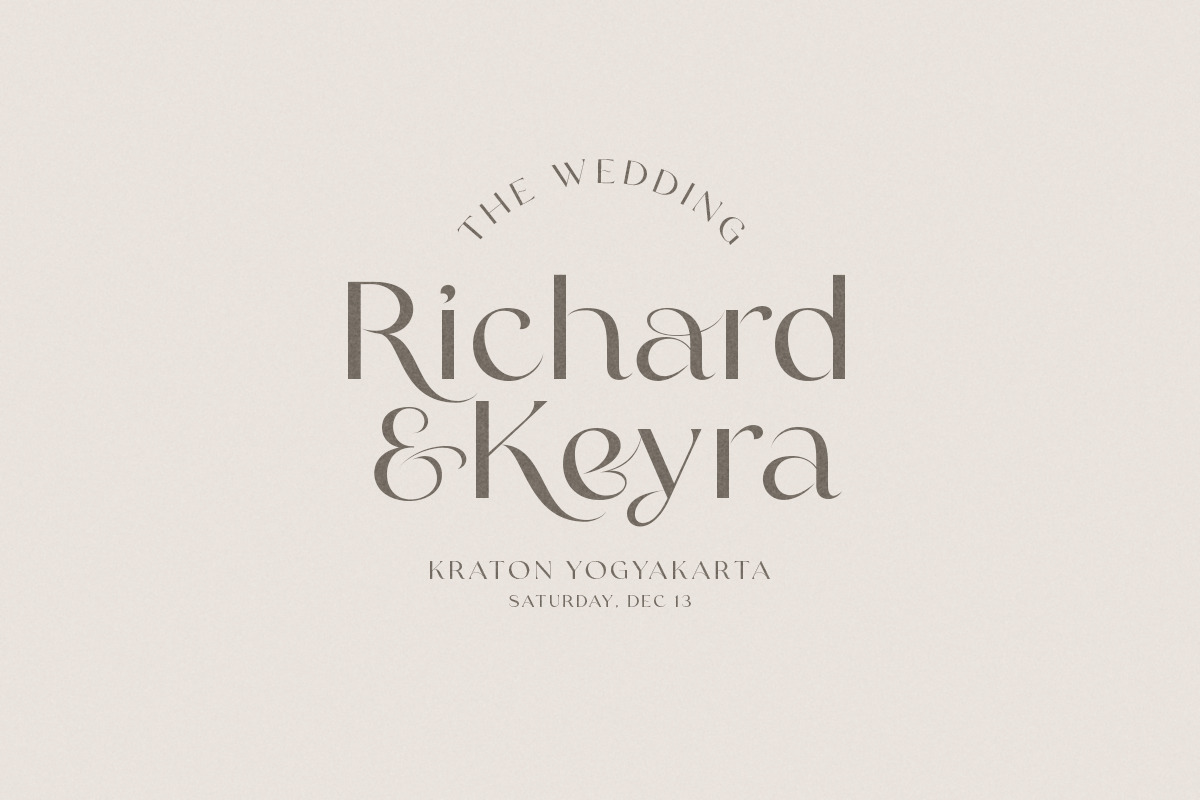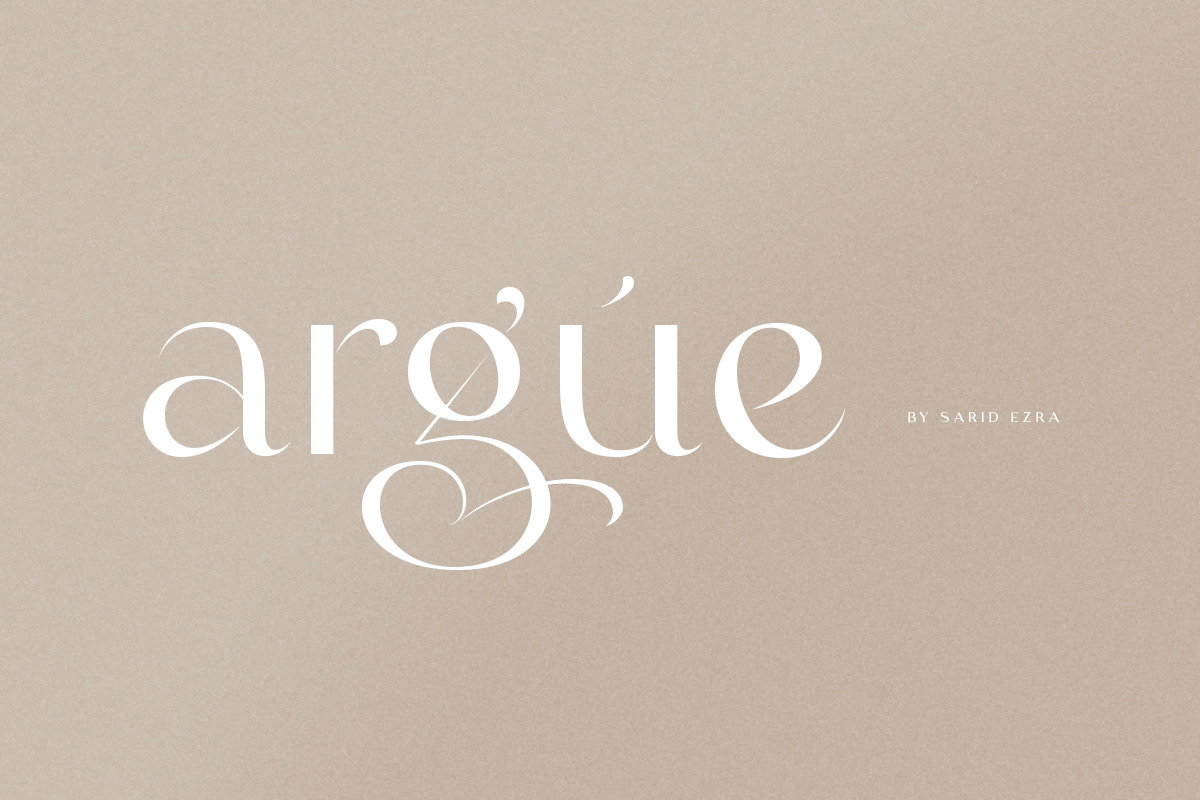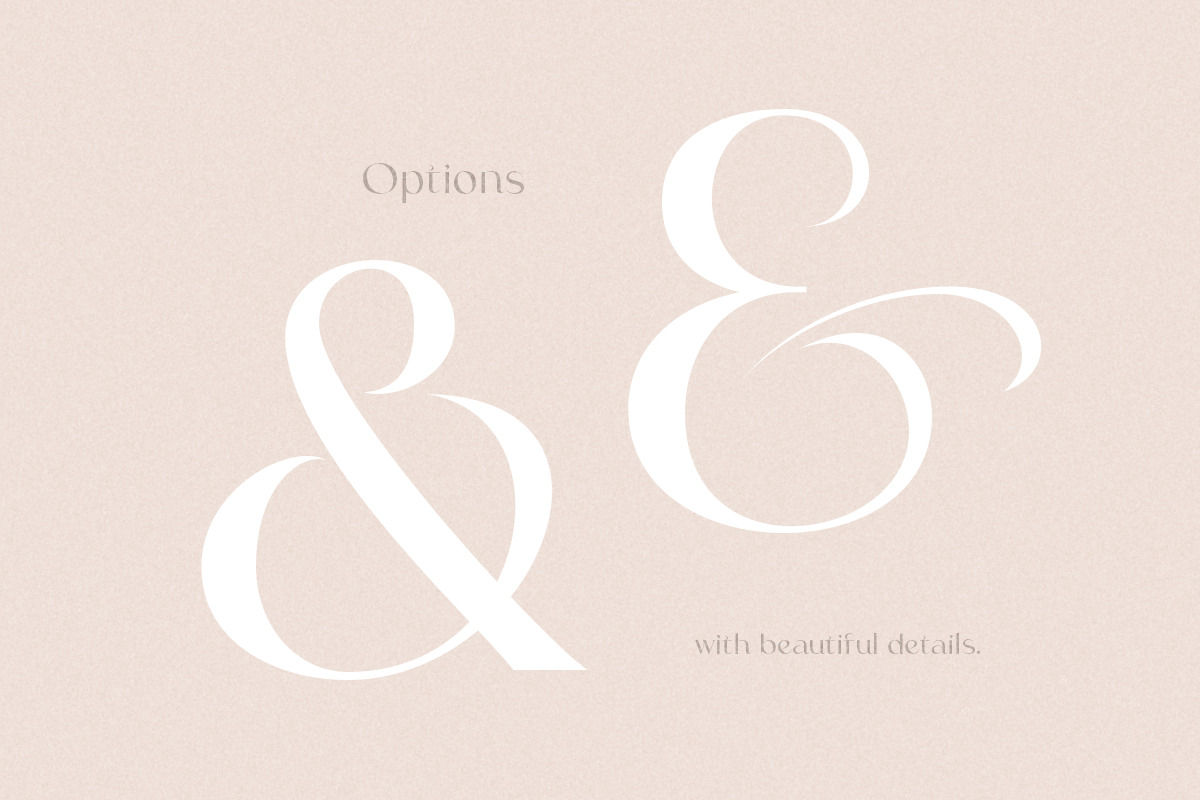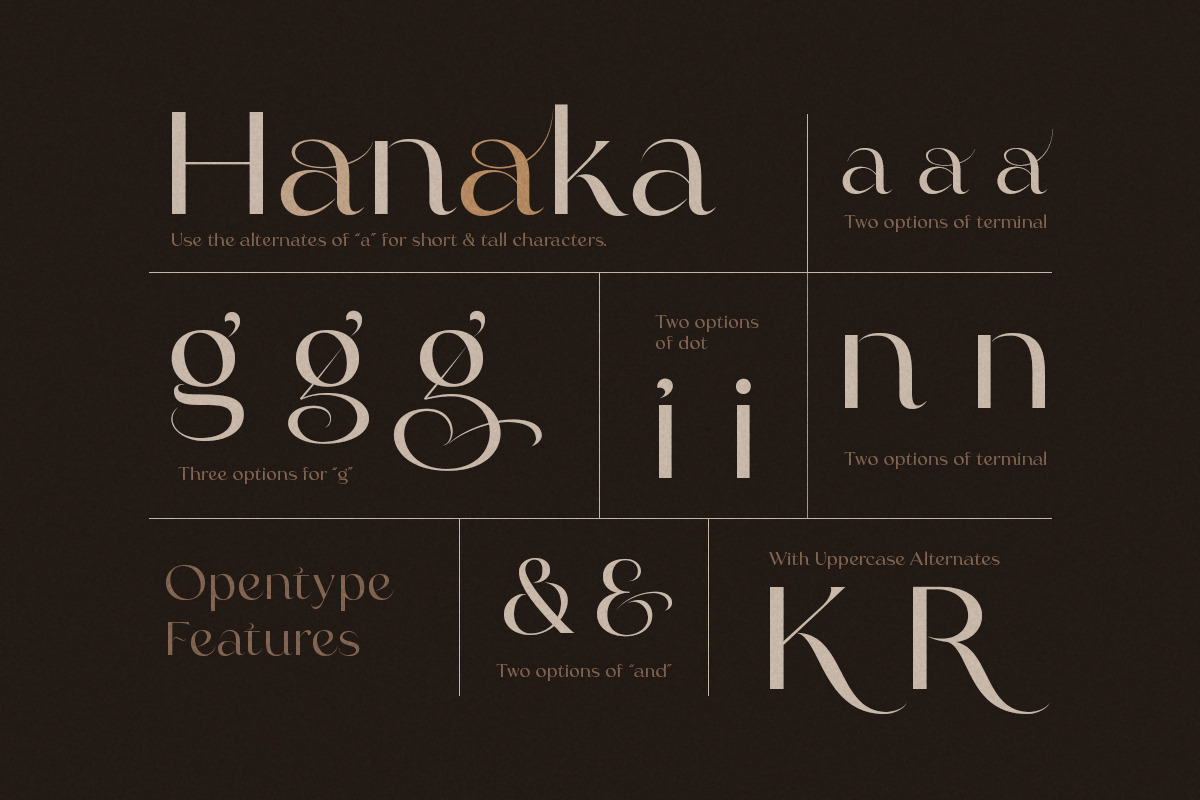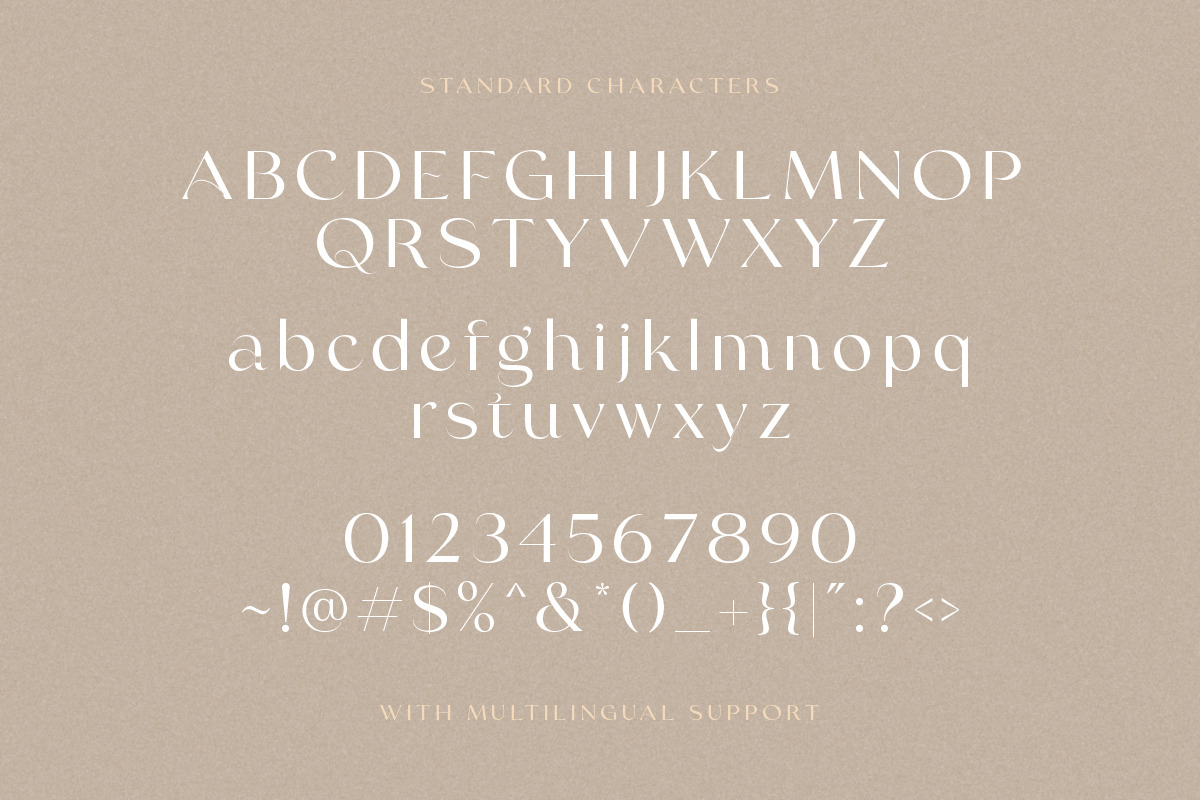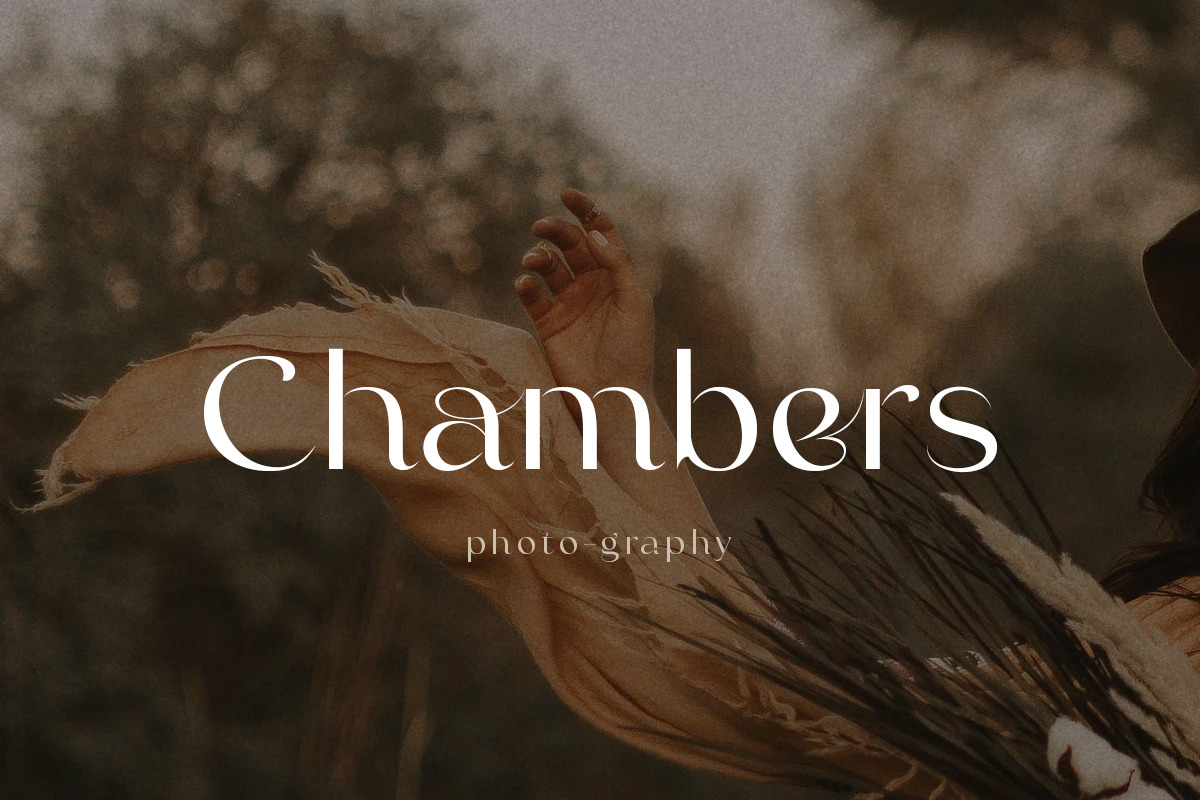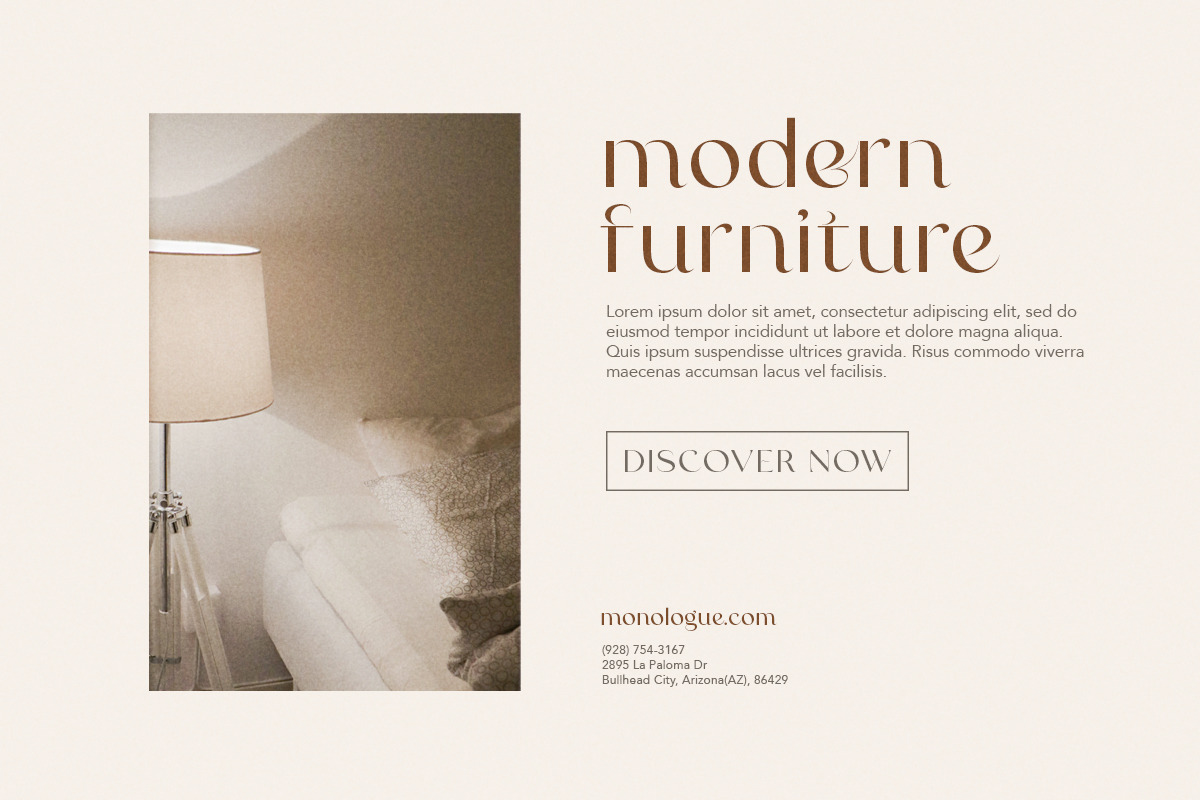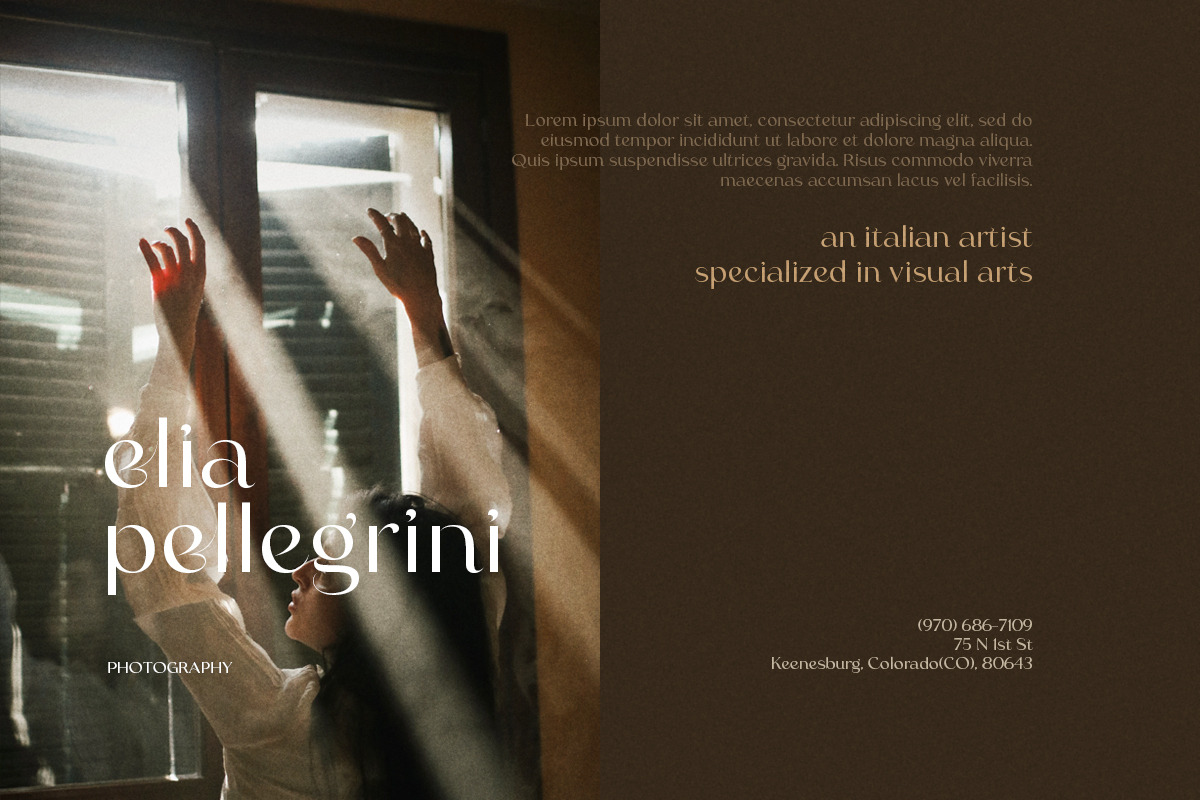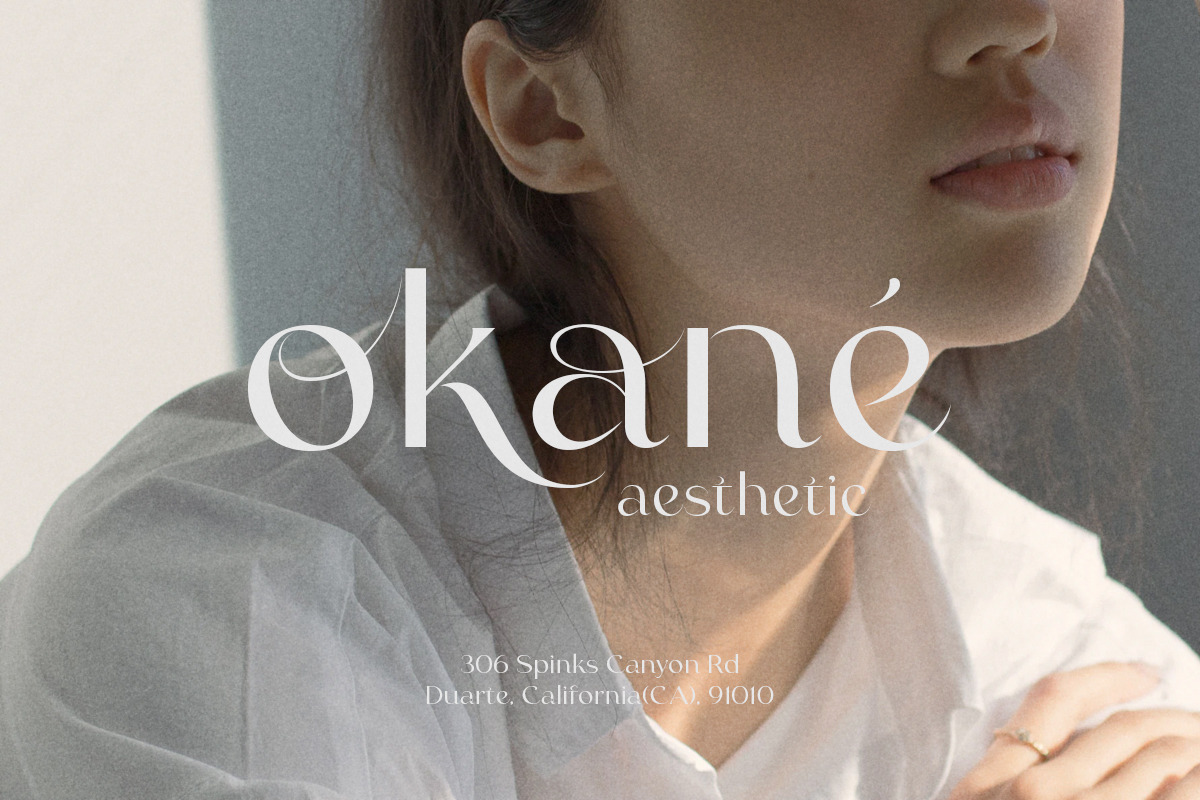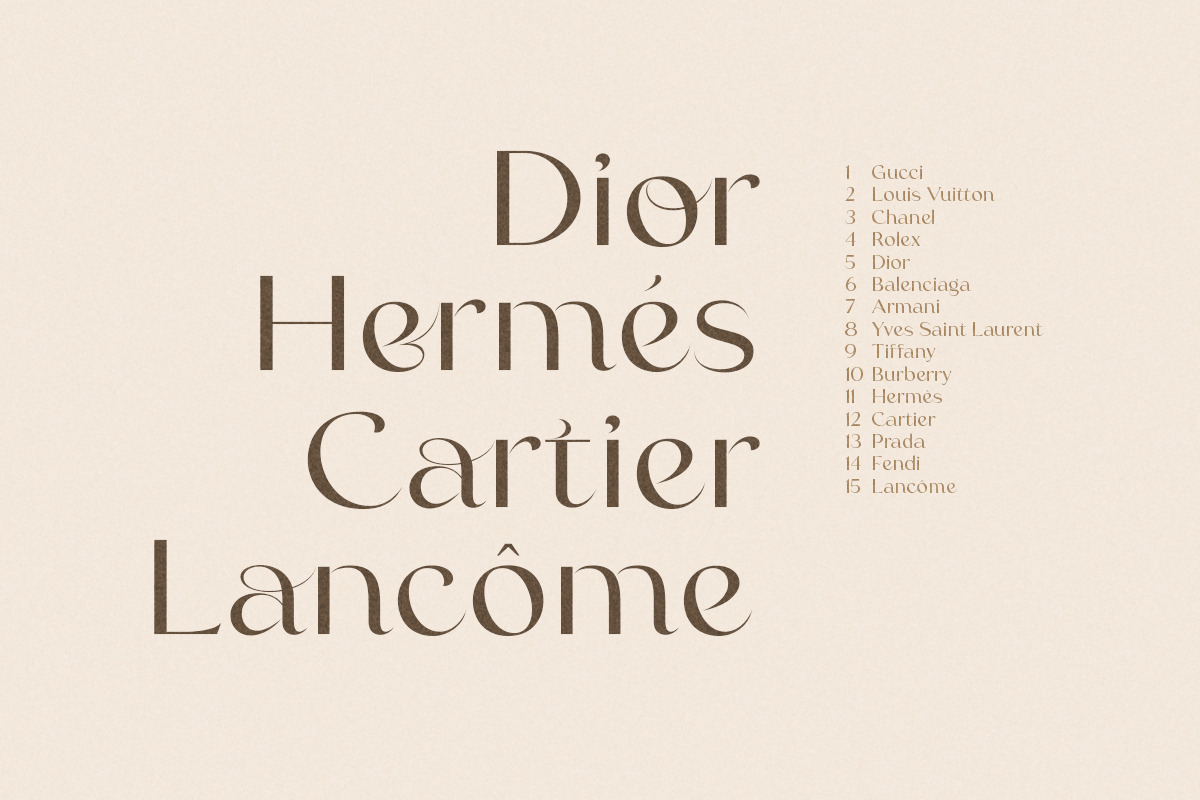
Argue - Stylish Font
Introducing, Argue - a stylish font based on sans serif!
Argue is an elegant and modern sans serif with a bunch of features that will make your presentation or logo more stunning and stand out! You can use this font for several purposes such as a wedding invitations or even your own branding! This fonts support Multi Language and already PUA Encoded! Also comes with beautifully crafted details that make this font more stylish.